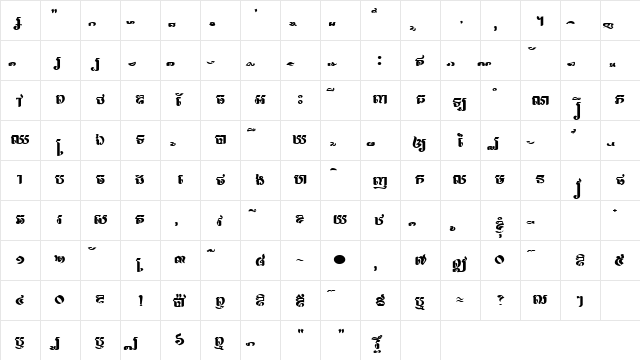
Lbumphat Regular
Design Context for Lbumphat Typeface
Lbumphat is a composed and adaptable typeface that performs quietly and consistently across a wide range of design contexts.